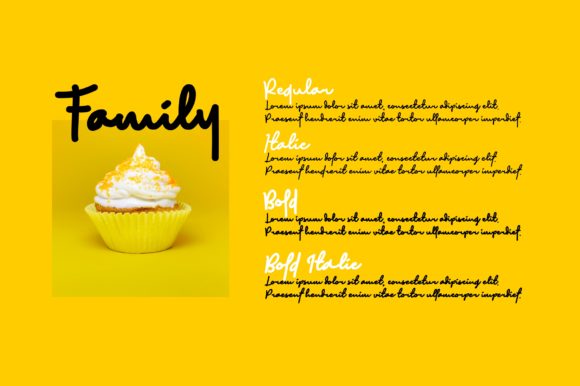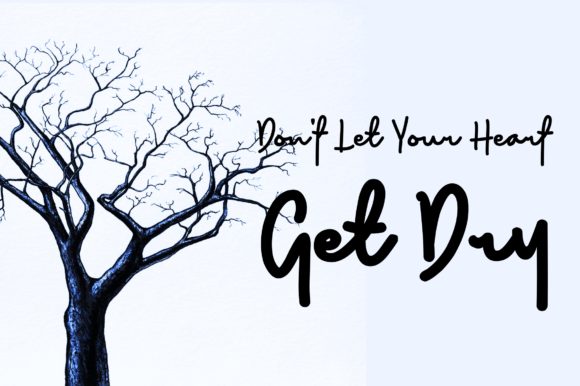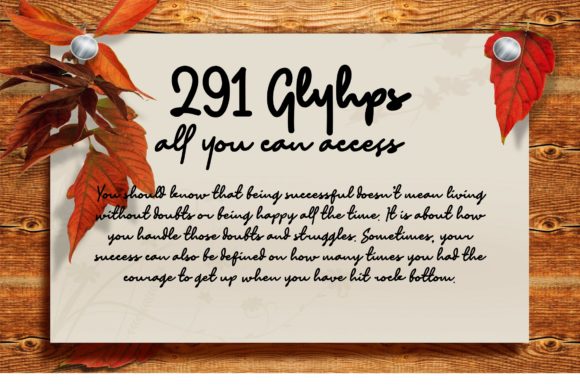
About Grandix Font
Grandix is a font that exudes cuteness and simplicity in its delightful handwritten style. With its charming appeal, this font becomes the perfect choice for various creative projects, especially for writing letters to Santa or infusing your creations with a touch of innocence and playfulness.
The cute and simple handwritten style of Grandix brings a sense of joy and authenticity to your designs. Each letter carries the free-flowing and artistic touch of handwriting, making your work stand out with a touch of genuine charm and innocence.
With Grandix as your creative tool, you have the freedom to explore various design ideas. Whether you’re writing heartfelt letters to Santa, creating playful and adorable graphics for children, or designing projects that require a touch of simplicity and cuteness, Grandix adapts effortlessly to bring a sense of versatility and charm to your work.
Embrace the cute and simple style of Grandix and witness how it transforms your designs into delightful works of art. Its playful and innocent nature adds a touch of warmth, making your designs truly captivating and endearing.
With PUA encoding, accessing all the glyphs and swashes becomes effortless, providing you with a plethora of creative possibilities. Customize and personalize your designs with ease, allowing your creativity to flourish without limitations.
Discover the joy of creating with Grandix as your trusted companion. Let its handwritten appearance be the key to unlocking your creativity and infusing your work with a sense of innocence and playfulness.
Whether you’re designing letters to Santa or adding a touch of cuteness to your creations, Grandix is the font that adds that extra touch of flair and charm to your projects. Embrace the cute appeal of Grandix and witness how it enhances the appeal and impact of your designs, making them truly special and unforgettable.
Let Grandix be the font that sparks your imagination and brings a touch of simplicity and cuteness to your designs. Experience the magic of Grandix and witness how it elevates your creative projects, making them truly delightful and filled with a sense of innocence and joy.